Typography can completely change the mood of a design. A simple photo background can look premium, cinematic, romantic, modern or luxury just by choosing the right font. For designers, fonts are not just letters — they are visual identity tools.
In this blog, we are sharing a curated list of stylish free fonts for designers that are perfect for logos, branding projects, social media posts, posters, wedding designs, fashion graphics and editorial layouts.
1. Hicheta
Best for: Signature logos, personal branding, fashion posts, quote graphics
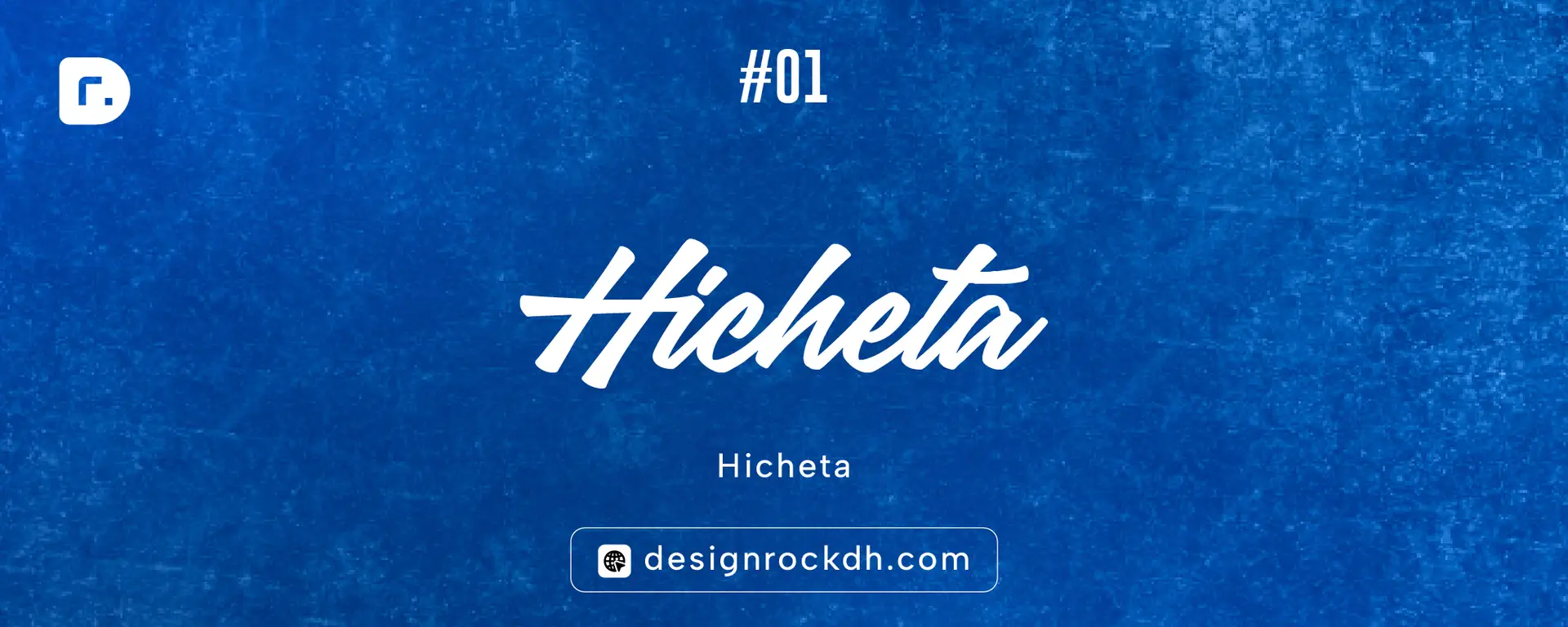
Hicheta is a stylish script font with a smooth handwritten look. It feels elegant, expressive and modern, making it a good choice for designers who want a premium signature-style title. It works especially well on dark photography, fashion visuals, lifestyle posters and personal branding designs.
Use Hicheta for short words or logo-style typography. Avoid using it for long paragraphs because script fonts are usually stronger as display fonts.
Design tip: Pair Hicheta with a clean sans-serif font like Inter, Poppins or Montserrat for a balanced modern layout.
2. Vanger
Best for: Luxury logos, magazine titles, packaging, wedding invitations
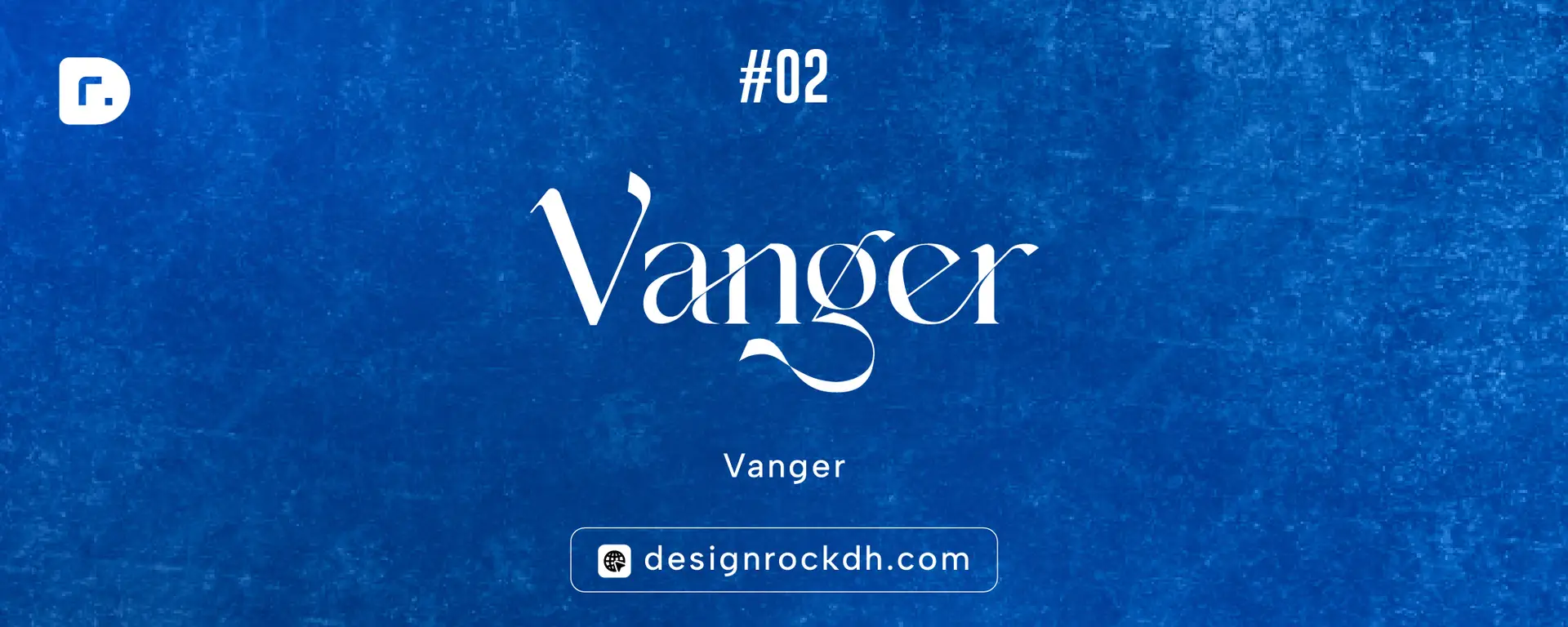
Vanger is a modern serif font with elegant curves and stylish ligature details. It gives designs a luxury and editorial feeling, which makes it useful for fashion brands, beauty packaging, premium social media posts and wedding stationery.
Design tip: Use large spacing and a minimal background. This type of serif font looks best when it has enough breathing space.
3. Nordigh
Best for: Editorial headlines, posters, visual storytelling, premium branding
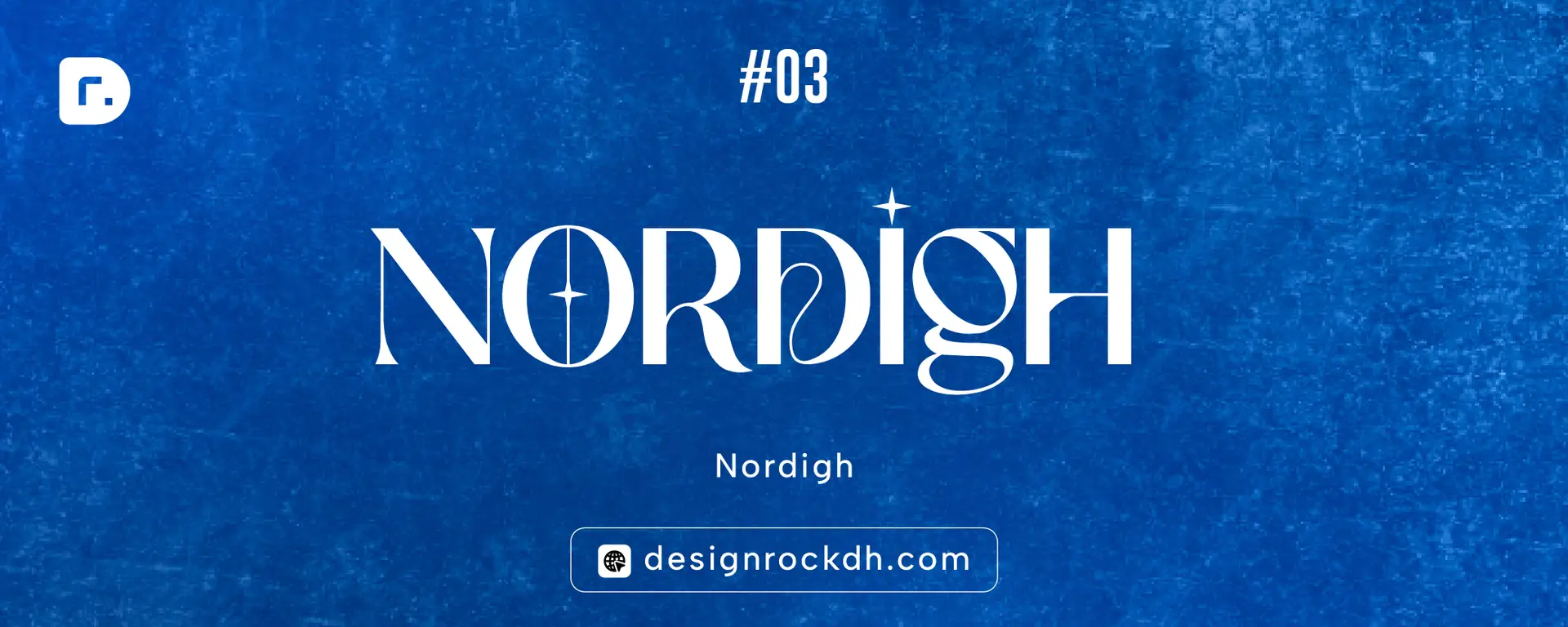
Nordigh is a serif display font with a strong visual personality. It has expressive serif details and a premium display presence, making it suitable for titles, creative layouts and dramatic typography compositions.
Nordigh is a strong choice when you want typography that feels cinematic, artistic and slightly mysterious.
Design tip: Use Nordigh with moody photography, dark overlays or warm sunset backgrounds for a premium editorial feel.
4. Sevone
Best for: Minimal luxury logos, fashion layouts, social media covers
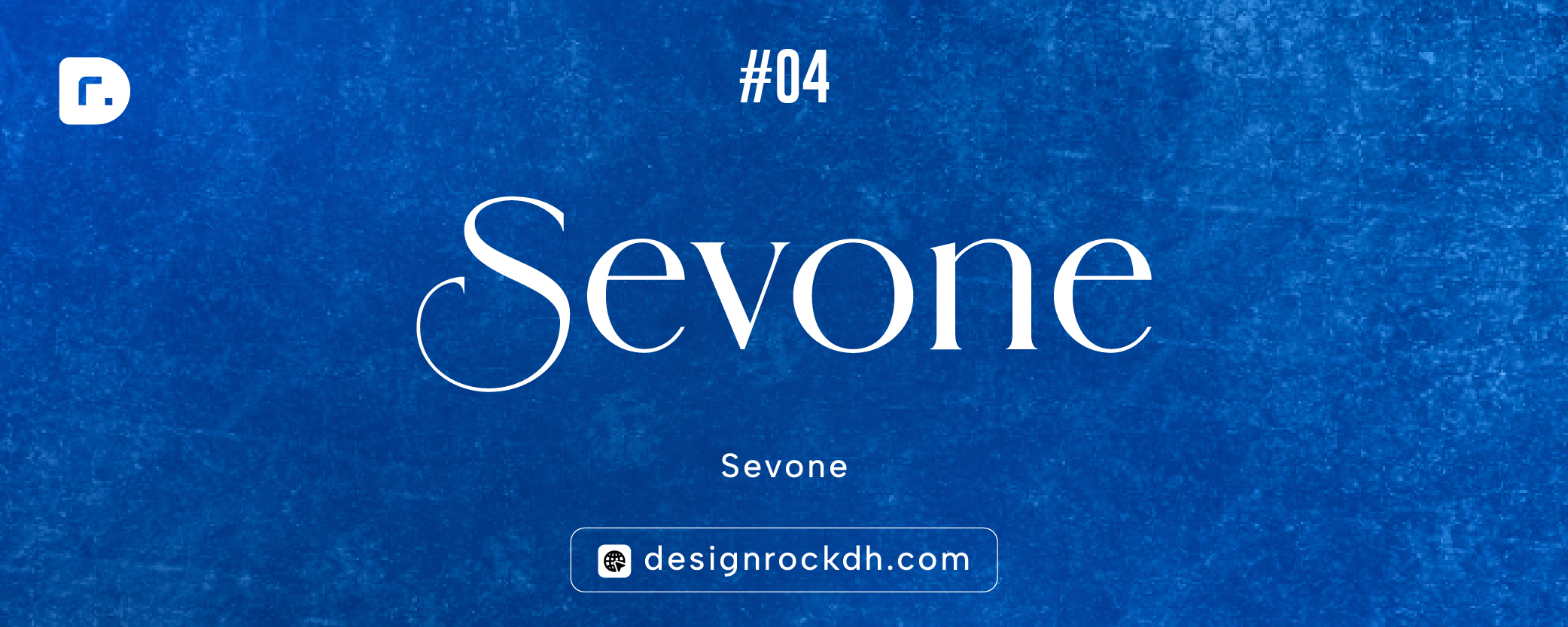
Sevone is an elegant serif font with a modern and minimal look. It works well when you need clean but stylish typography. It can be used for logos, fashion graphics, quote posts, editorial titles and premium web banners.
Design tip: Use Sevone on dark, minimal backgrounds. It looks strong with black, grey, beige, off-white and muted tones.
5. Drose
Best for: Fashion branding, luxury posters, beauty graphics, editorial layouts
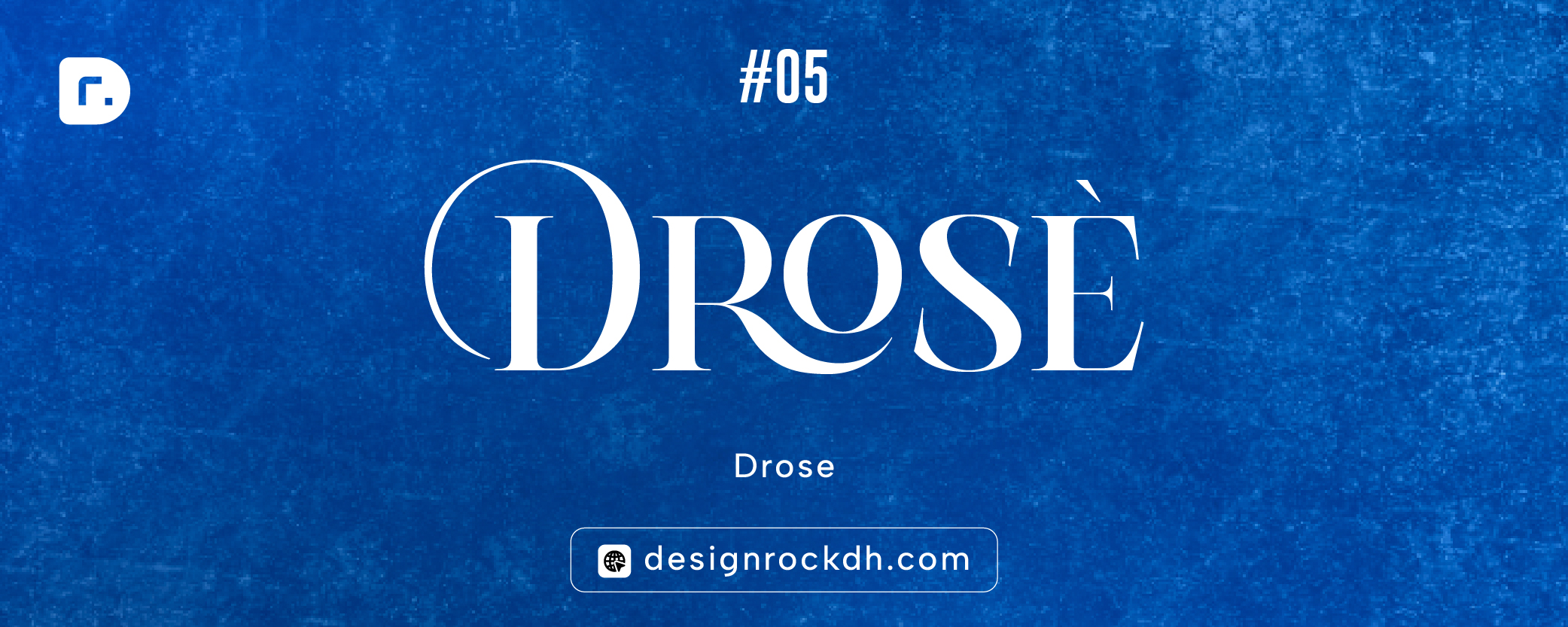
Drose is a modern luxury serif font with high-contrast curves and refined details. It is suitable for logos, fashion branding, invitations, magazines and premium packaging.
Drose is a great option when your design needs to feel elegant, soft and feminine without looking too decorative.
Design tip: Use Drose with warm photography, floral visuals or soft beige backgrounds.
6. Hakuna
Best for: High-end branding, editorial layouts, wedding invitations
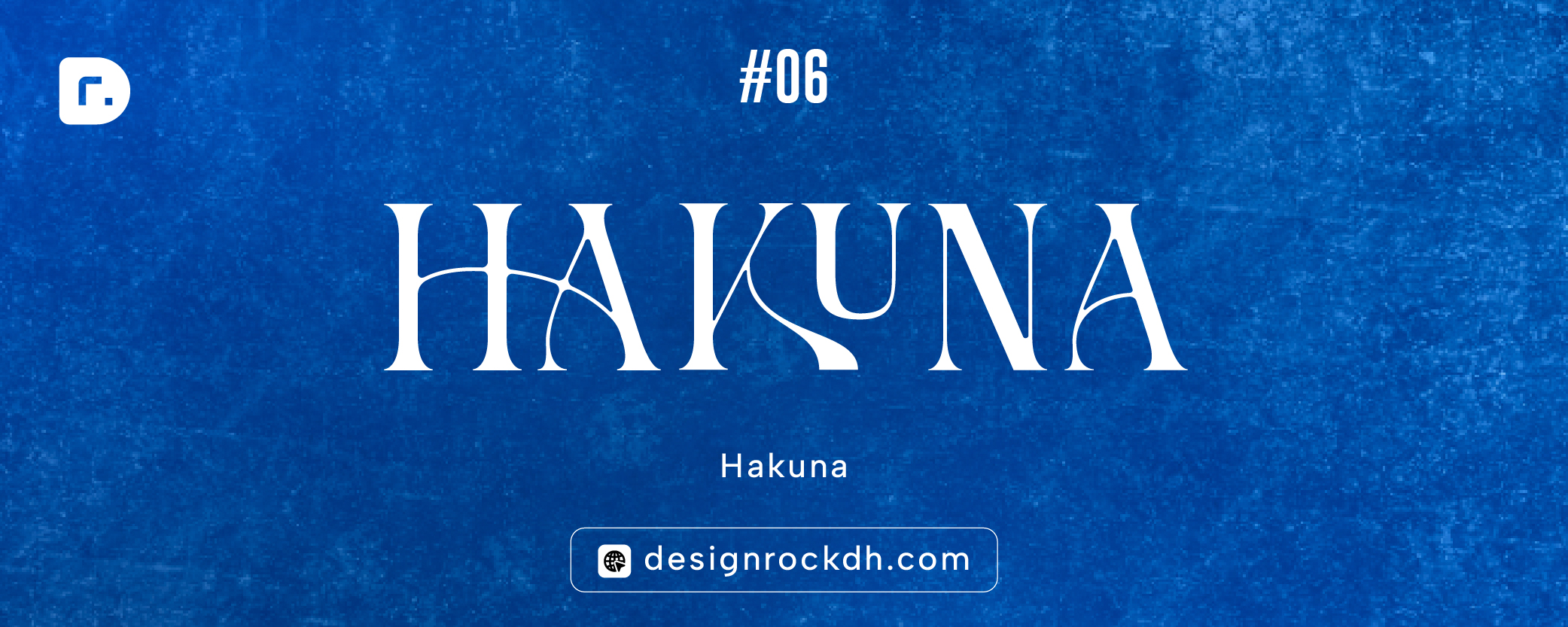
Hakuna is a refined modern serif font with graceful ligatures and stylish alternate characters. It works well for luxury branding, logos, wedding invitations and editorial layouts.
Design tip: Use Hakuna for short brand names or large hero titles. It creates a premium look when paired with a simple neutral layout.
7. Atfagis
Best for: High-fashion branding, luxury campaigns, editorial design
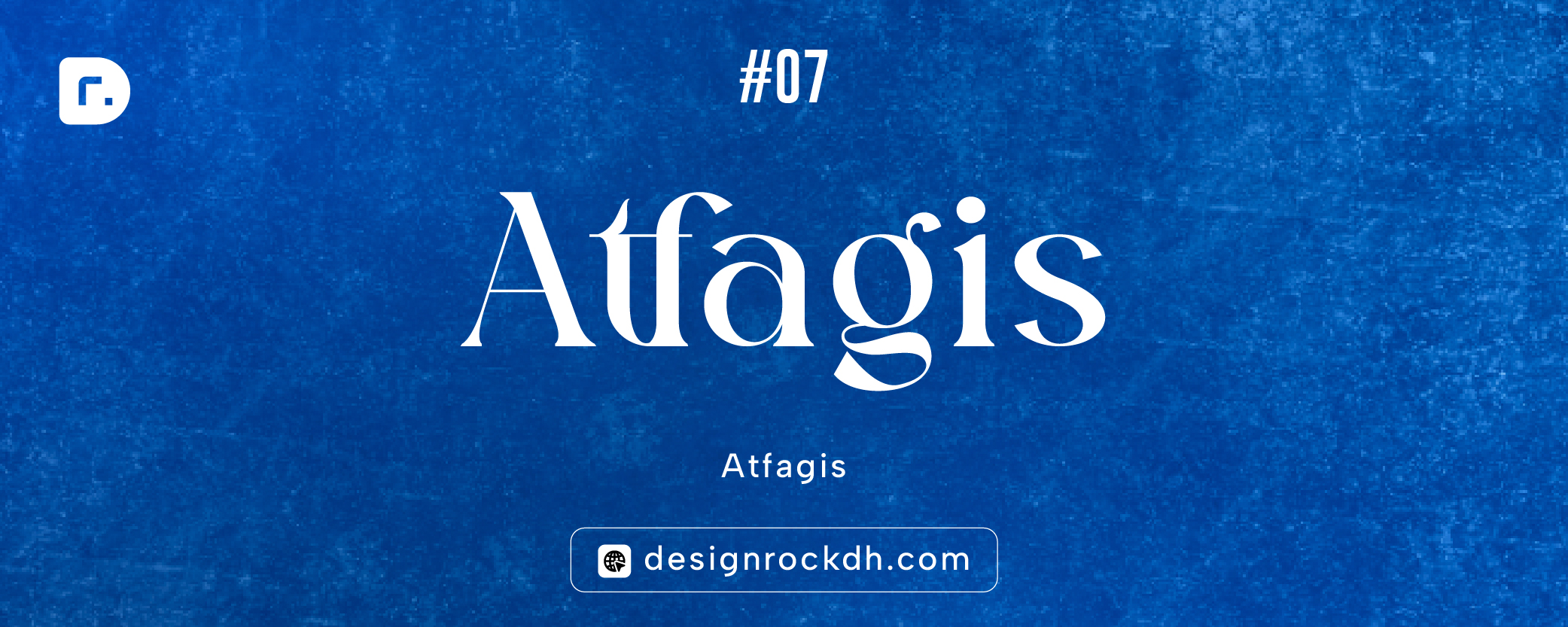
Atfagis is a modern luxury serif font with a bold high-fashion personality. It works well for premium branding, editorial-style layouts, social media campaigns, fashion posters and logo presentations.
Design tip: Use Atfagis for large headlines, fashion campaigns, magazine covers and premium brand presentations.
Quick Font Usage Guide
| Font | Style | Best Use |
|---|---|---|
| Hicheta | Script | Signature logos, personal branding |
| Vanger / Vanyger | Serif | Luxury logos, packaging |
| Nordigh | Display serif | Editorial posters, dramatic titles |
| Sevone | Minimal serif | Fashion posts, modern logos |
| Drose | Luxury serif | Beauty, fashion, editorial design |
| Hakuna | Refined serif | Wedding, luxury branding |
| Atfagis | High-fashion serif | Luxury campaigns, magazine covers |
Good typography makes your design look intentional, polished and memorable — and the right font can turn a simple design into a strong visual identity.